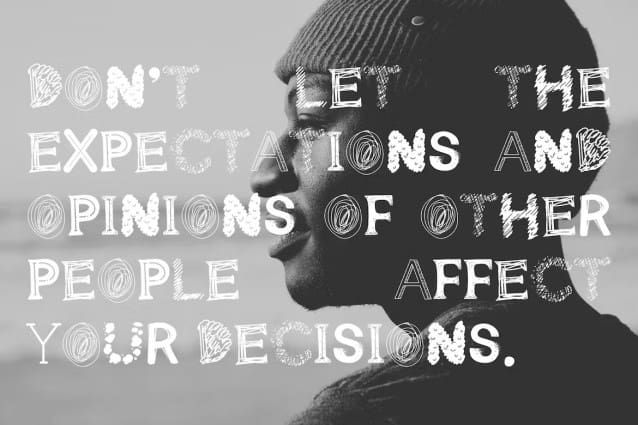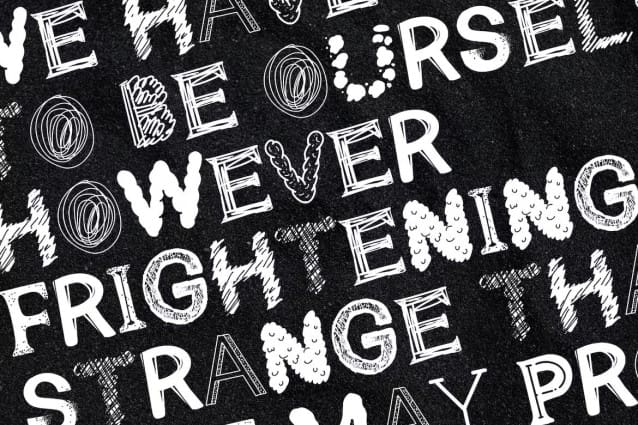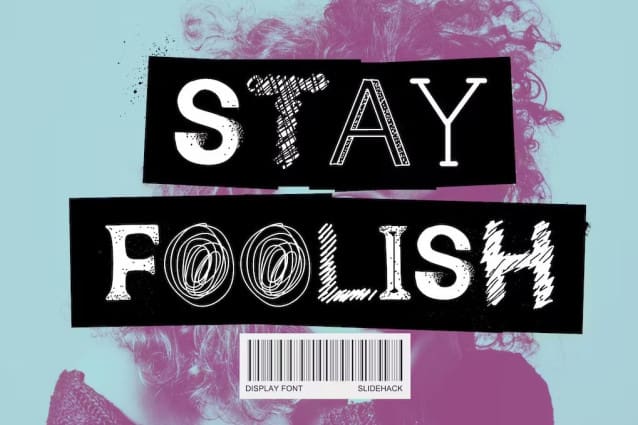
Stay Foolish Font
Stay Foolish Font, a captivating hand-drawn display font that exudes an irresistible blend of quirkiness and uniqueness. With its playful strokes and charismatic imperfections, this font showcases an abundance of personality that will effortlessly grab attention. Inspired by doodles and collages, “Stay Foolish” brings a delightful and carefree vibe to any project it graces.
Perfect for any digital projects, this font adds a touch of whimsy to your designs, making them stand out in a sea of conformity. Whether you’re aiming for a trendy, laid-back aesthetic or a bold, eye-catching statement, “Stay Foolish” effortlessly adapts to your creative vision.
Each character has been meticulously handcrafted to retain its hand-drawn charm, resulting in an authentic and organic feel. Let “StayFoolish” be the vibrant centerpiece of your next project, inviting viewers to explore a world of imagination and playfulness. Ignite your design with this captivating font and embrace the power of staying foolish!